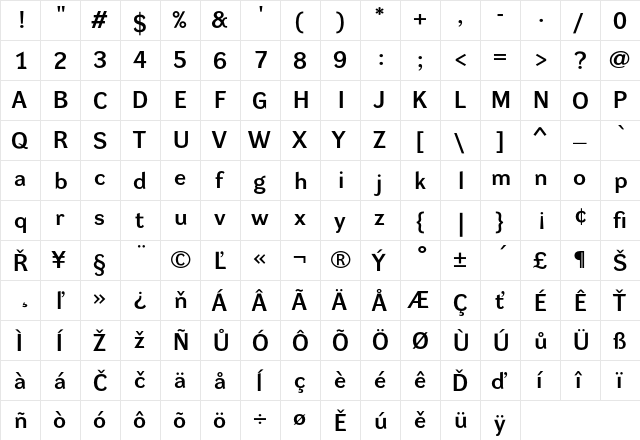
Dynamo DE Regular
Design Context for Dynamo DE Typeface
Dynamo DE offers clean, dependable letterforms without strong stylistic allegiance, making it a practical choice for designers who need flexibility.
Pro Tip: Pair Dynamo DE with a font of contrasting weight or personality to build a more expressive typographic hierarchy.